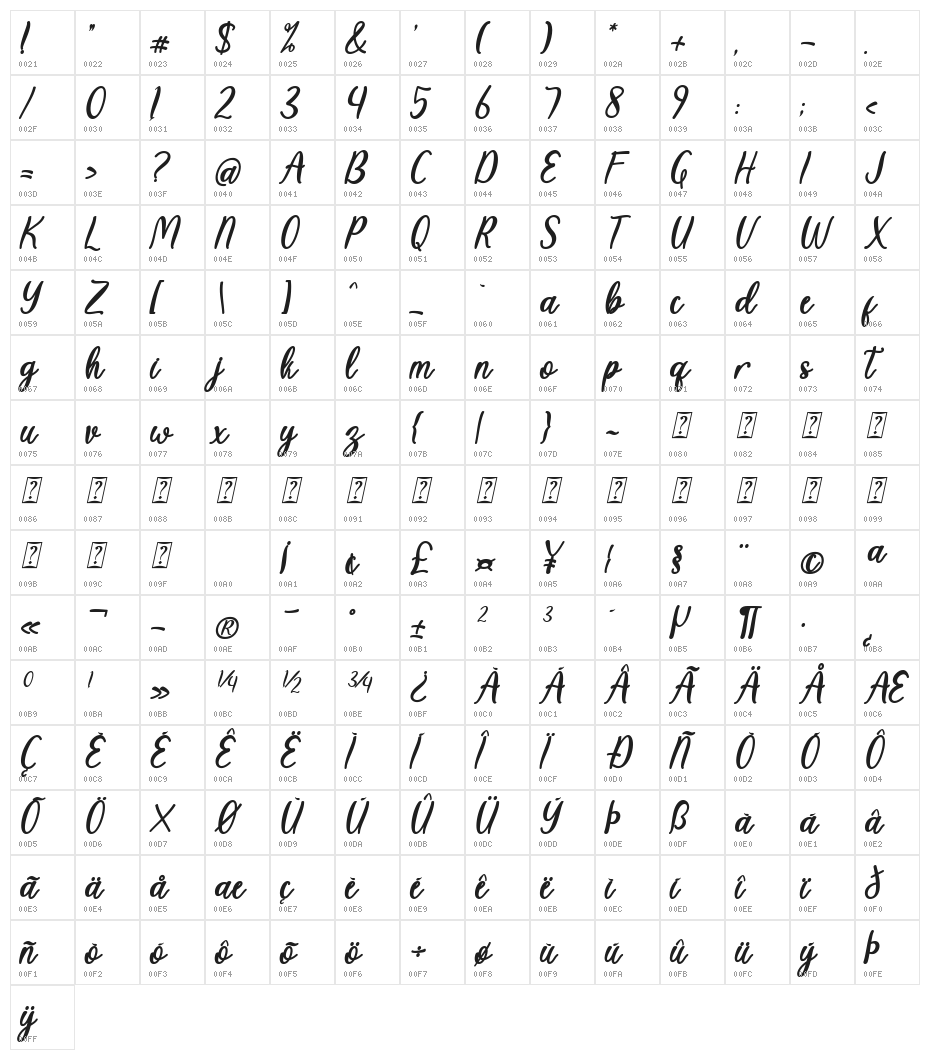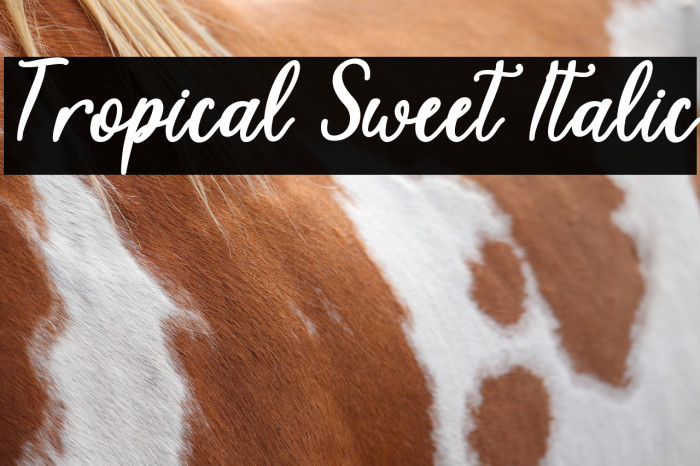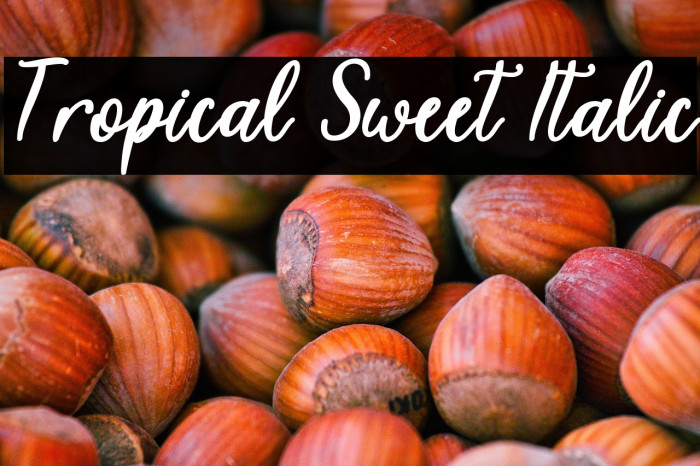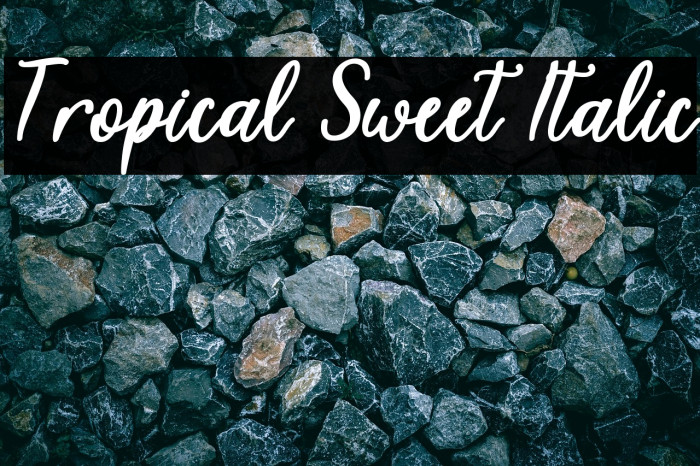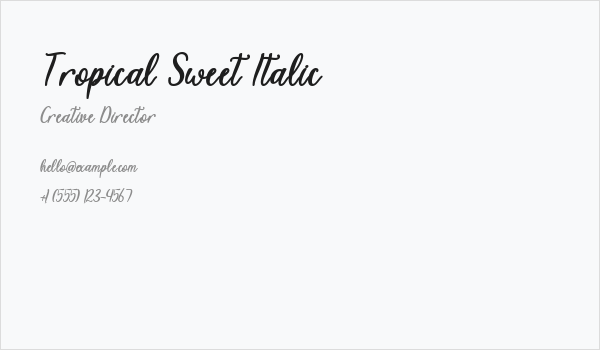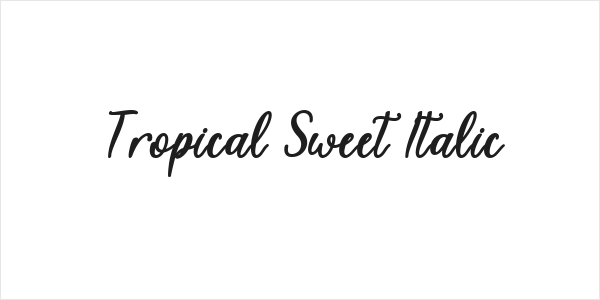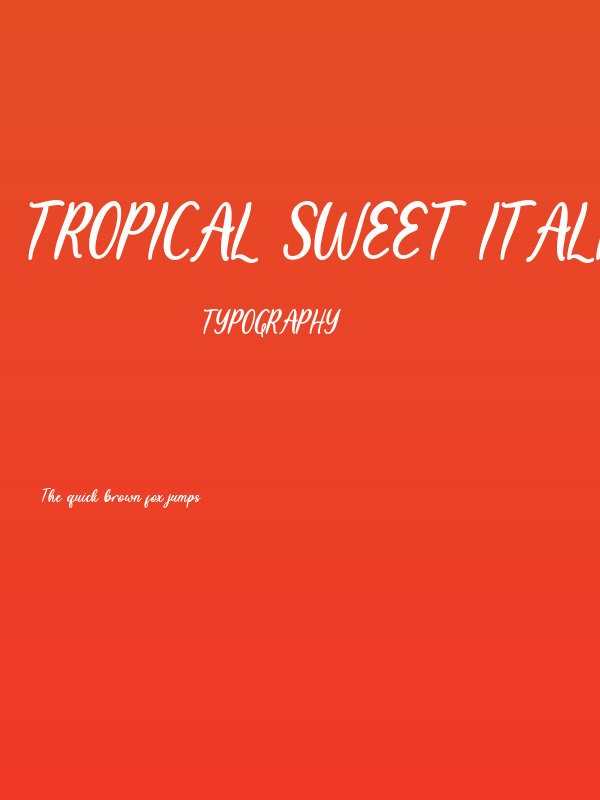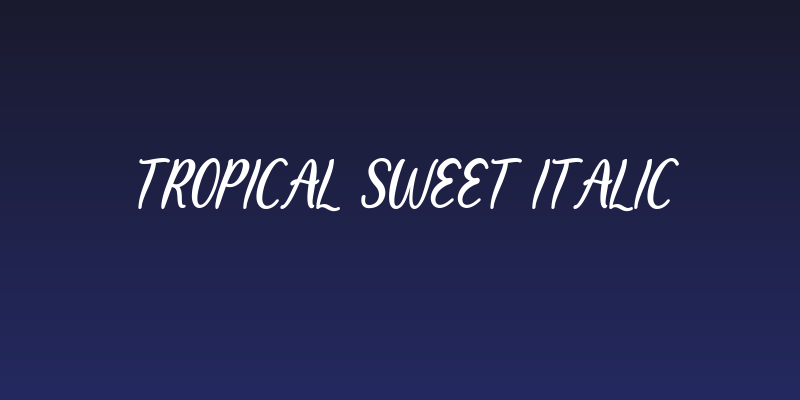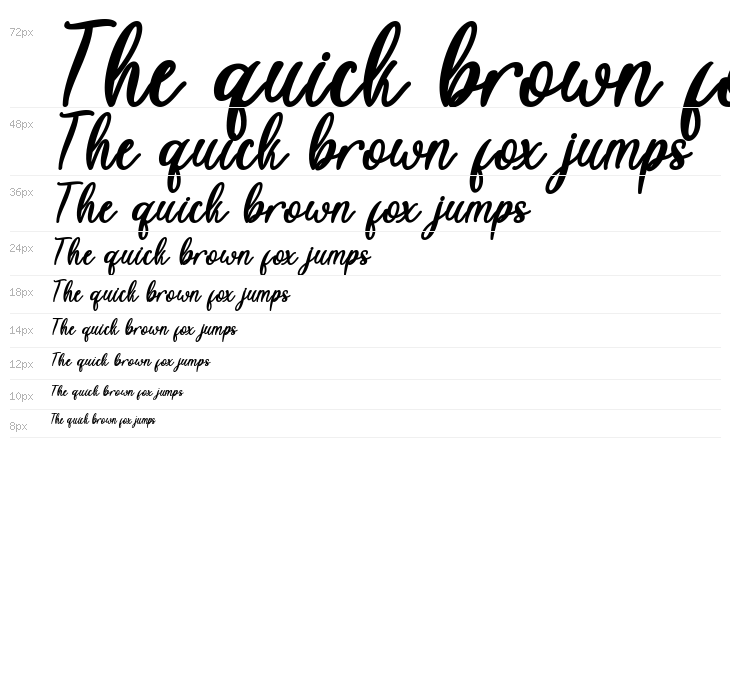
Tropical Sweet Italic Font
Tropical Sweet Italic Description
This font exudes a lively and playful character, with its fluid and cursive style. The letters are connected, giving it a handwritten feel that is both casual and elegant. The strokes are smooth and consistent, with a slight slant that adds to its dynamic appearance. The uppercase letters are bold and prominent, while the lowercase letters maintain a graceful flow. Numbers and special characters are designed to match the overall aesthetic, ensuring a cohesive look. This font is perfect for projects that require a touch of personality and charm.
| Proposed Projects | Ideal for greeting cards, invitations, personal branding, and creative posters. |